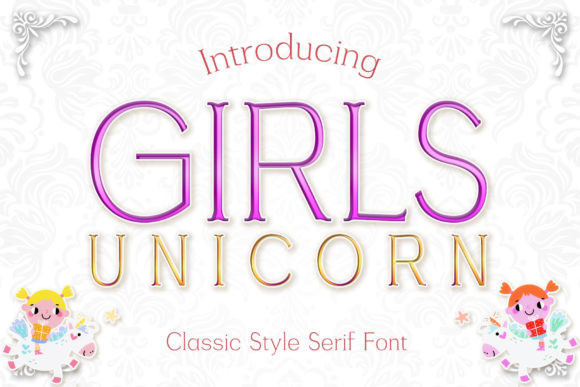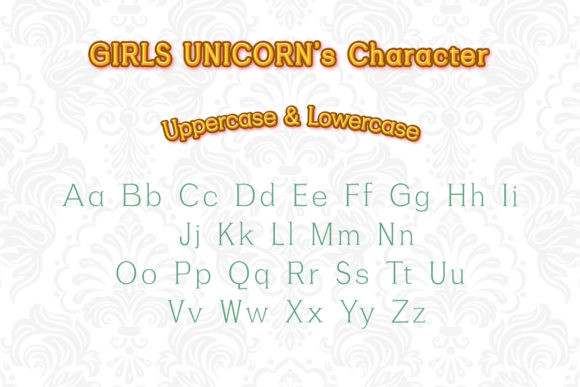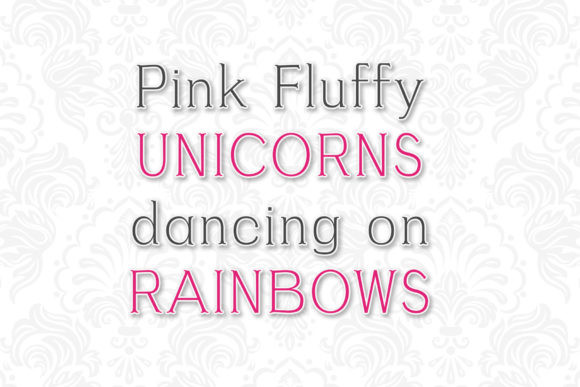
Girls Unicorn Font
Girls Unicorn embodies fun, quirkiness and authenticity. This enchanting serif font will turn any creative idea into a true standout.